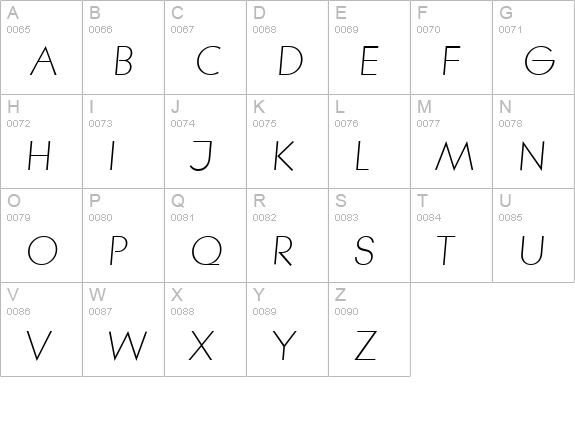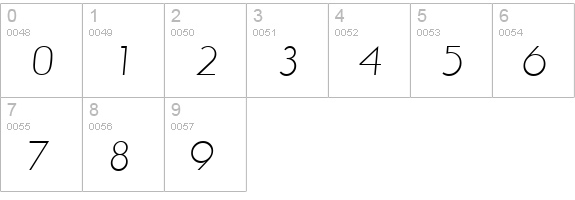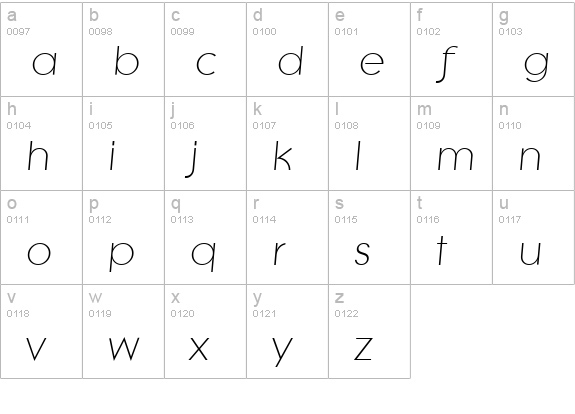
LiteraSerial-Light-Italic is a refined, elegant, italic variant in the LiteraSerial typeface family \xE2\x80\x94 well suited to elegant body text, refined sub-headings, and luxury branding.
Introducing LiteraSerial-Light-Italic font - a sleek and elegant typeface that effortlessly combines readability with sophistication. This modern font is perfect for adding a touch of class to your designs, from branding materials to editorial projects. The delicate curves and subtle slant of the italic style add a touch of flair while maintaining clarity and legibility. What's even better is that LiteraSerial-Light-Italic font is available for free download at FontsMarket.com. Embrace the versatility and style of this font in your projects without breaking the bank. Elevate your design game with LiteraSerial-Light-Italic and make a lasting impression with its timeless appeal.